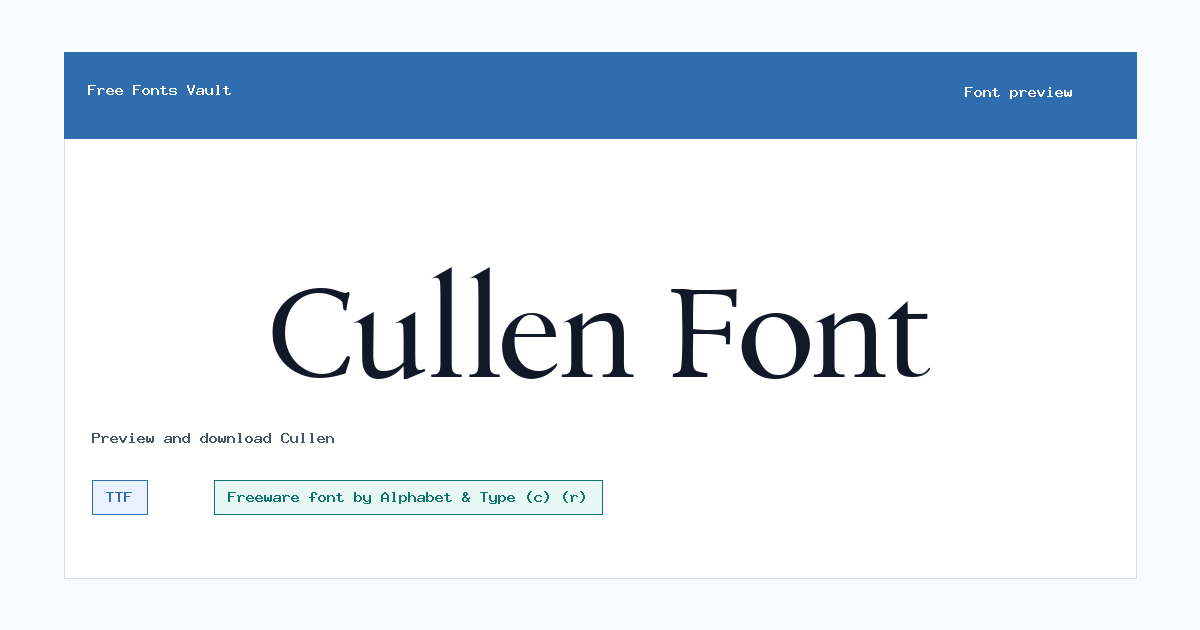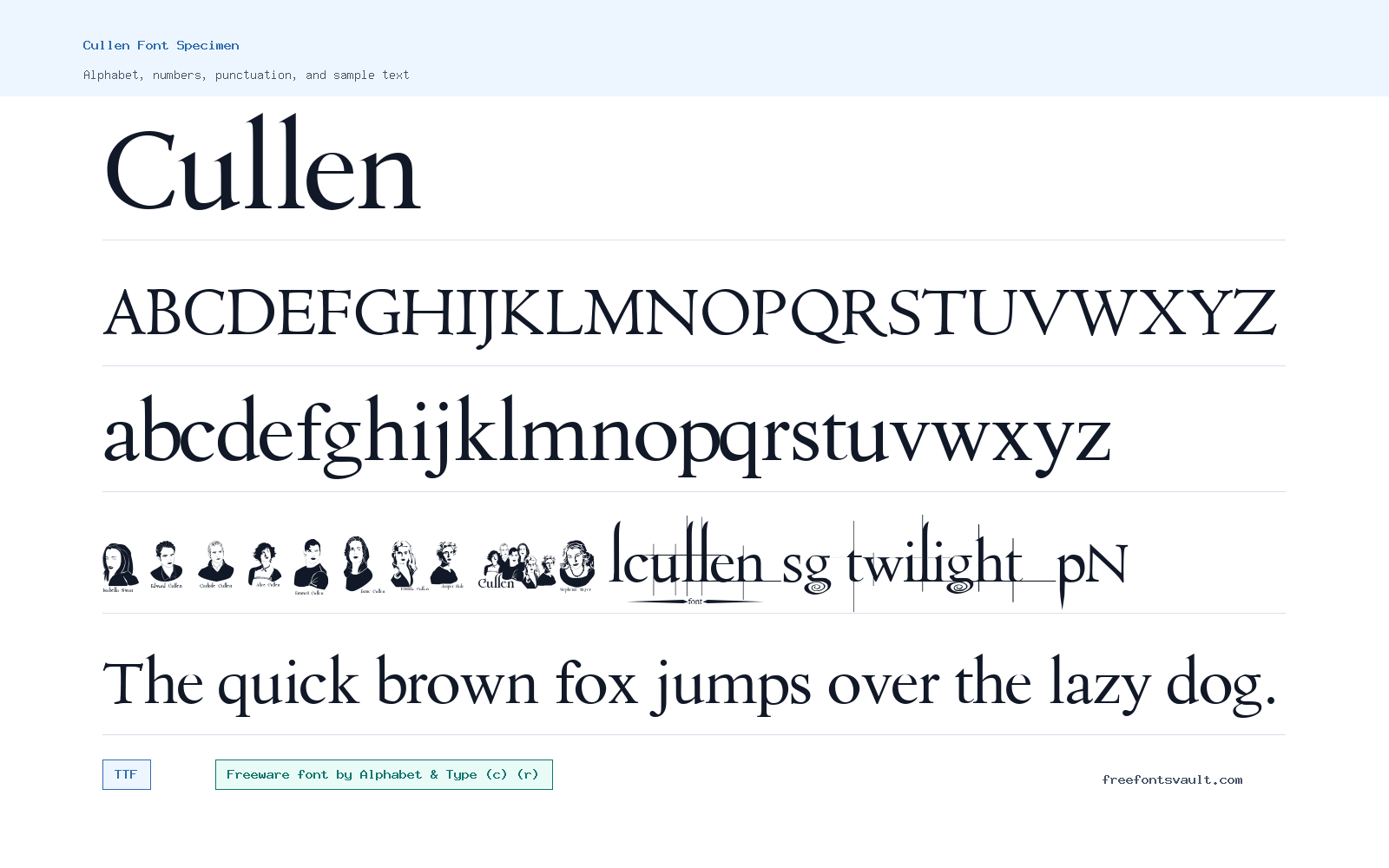
Cullen
- Designer P.A.Vannucci
Cullen font.
Cullen is a regular TrueType font with a high-contrast serif look, sharp details, and a formal tone that works best in short display text.
About Cullen Font
Cullen uses thin hairlines, heavier vertical strokes, and pointed serif details. In preview, the letters feel elegant and slightly dramatic without needing extra effects. The capitals are especially useful for names, short headings, title cards, invitation-style text, and decorative labels where a refined serif style is wanted.
Use the preview box to test your exact words before downloading. Cullen can look striking at large sizes, but the fine strokes may become harder to read in small body copy or low-resolution images. It is better for titles, logos for personal mockups, posters, social graphics, quotes, and short display lines than for long paragraphs. Also test numerals and punctuation carefully, because some keys may produce decorative symbol-style glyphs rather than standard text characters.
If you plan to use Cullen in a logo mockup or invitation design, preview the exact capitalization. The thin strokes and decorative details are part of its appeal, but they also need enough contrast and breathing room to stay clear in print or small images.
- High-contrast serif letterforms with fine strokes and sharp terminals
- Decorative glyph behavior in some character slots, useful for display testing
- Best suited to larger sizes where the thin details remain clear
- Short titles and name treatments
- Poster headlines and quote graphics
- Invitation-style layouts
- Decorative labels, covers, and personal design mockups
For best results, use Cullen at display sizes and keep the text short. Pair it with a plain sans serif or simple text serif for paragraphs so the decorative style does not compete with body copy. Always preview numbers, punctuation, and accented characters if your design depends on them.
Can I use Cullen for body text?
It is not the best choice for long paragraphs. The fine strokes and decorative style are easier to read in short headings or larger display text.
Who designed Cullen?
The font information names P.A.Vannucci as the designer.
Why should I test numbers and symbols before using it?
Some character slots may show decorative glyphs instead of standard-looking text, so preview your exact wording before finalizing a design.